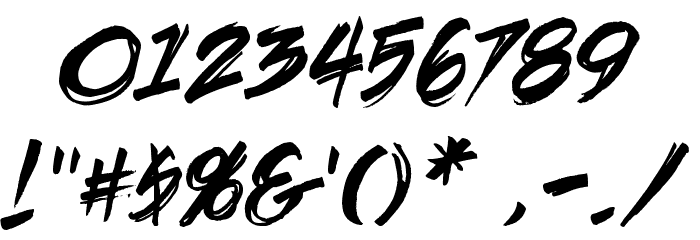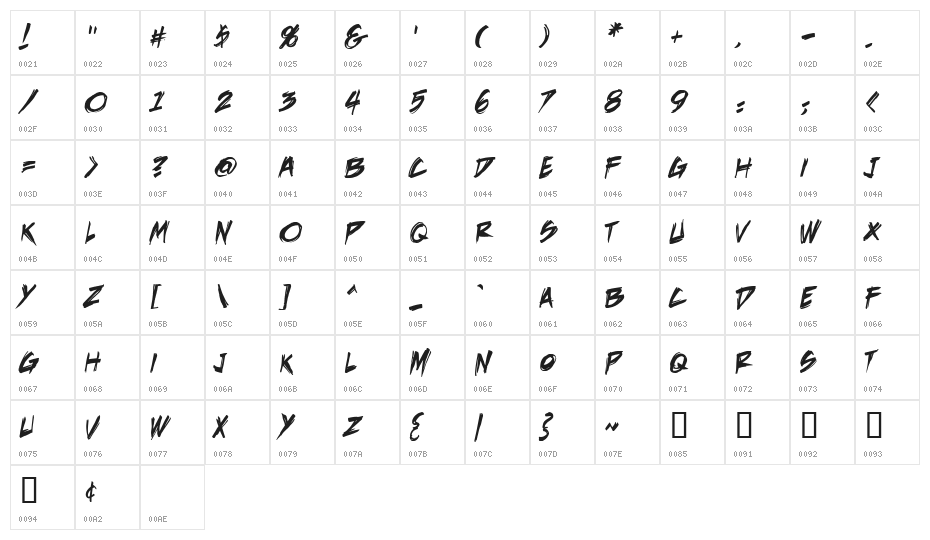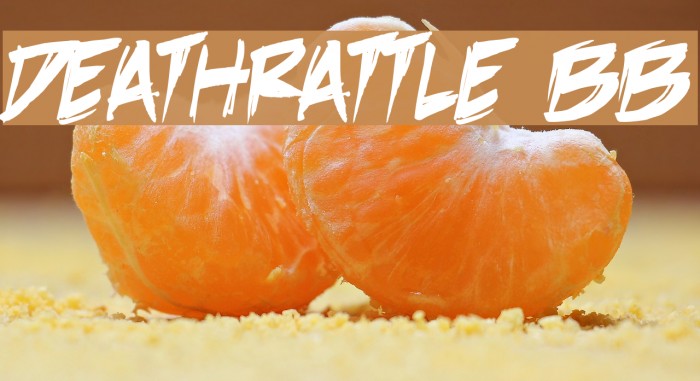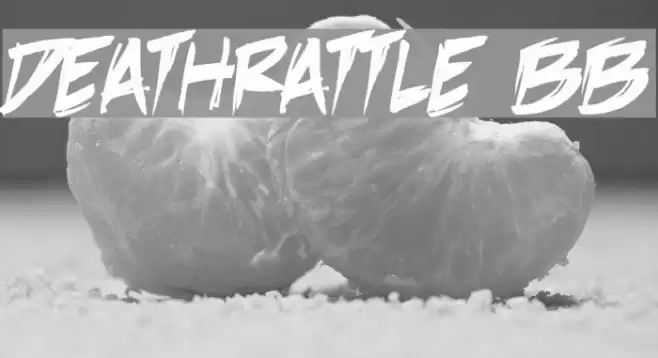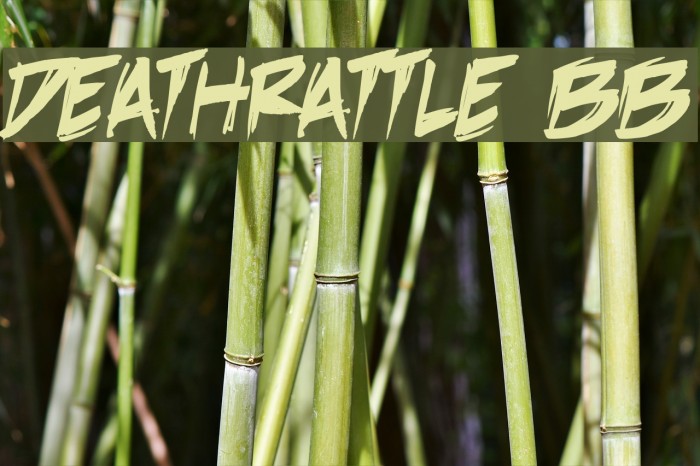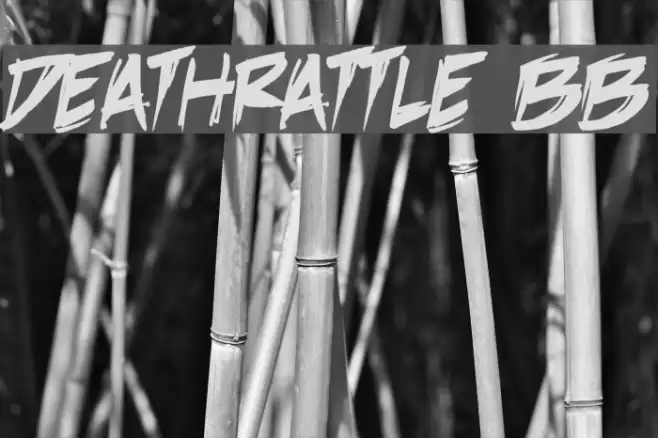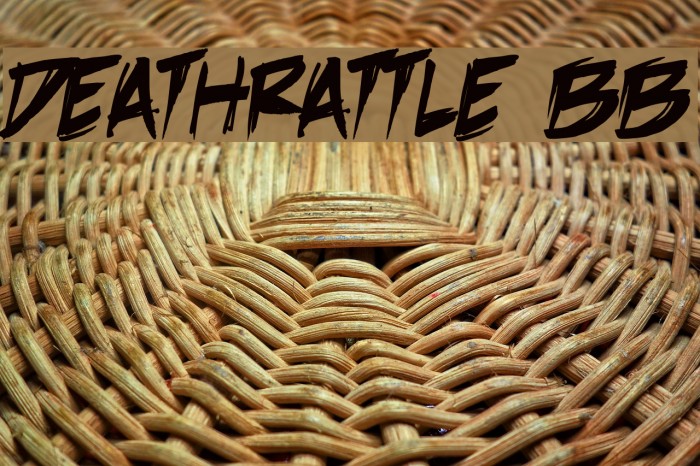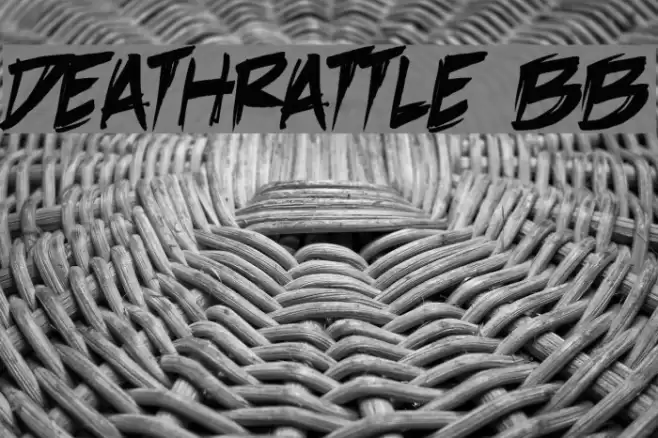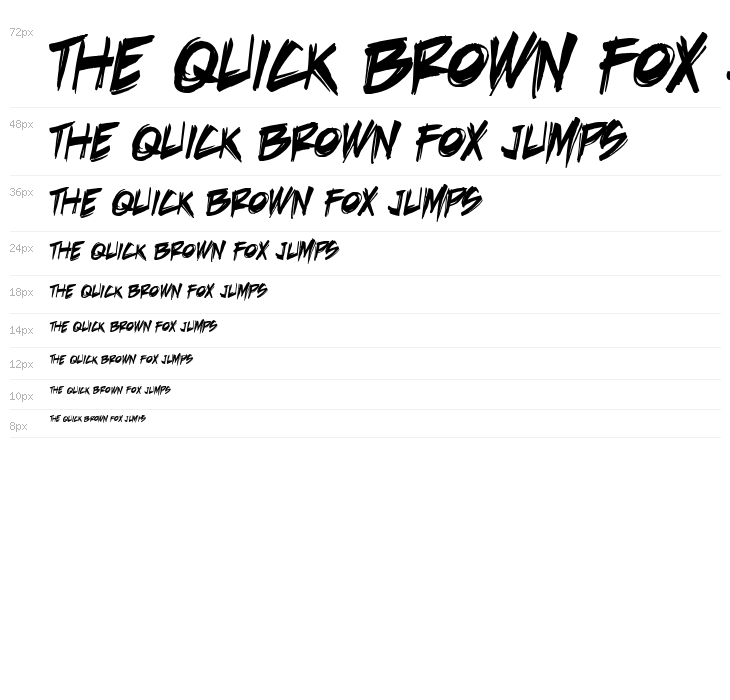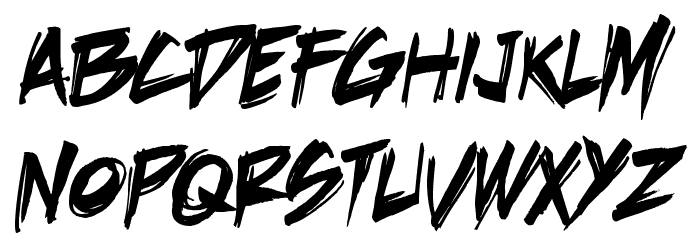
DeathRattle BB Font
DeathRattle BB Description
This font features a bold, aggressive style with sharp, jagged edges and a dynamic, energetic flow. The characters are designed with a brush-like appearance, giving them a raw and edgy look. The uppercase and lowercase letters maintain a consistent style, with exaggerated angles and a sense of motion. The numbers and special characters follow the same aesthetic, ensuring a cohesive look across all elements. This font is ideal for projects that require a strong, impactful visual presence, such as posters, album covers, or branding for edgy or alternative products.
Proposed ProjectsIdeal for posters, album covers, edgy branding, and alternative product designs.